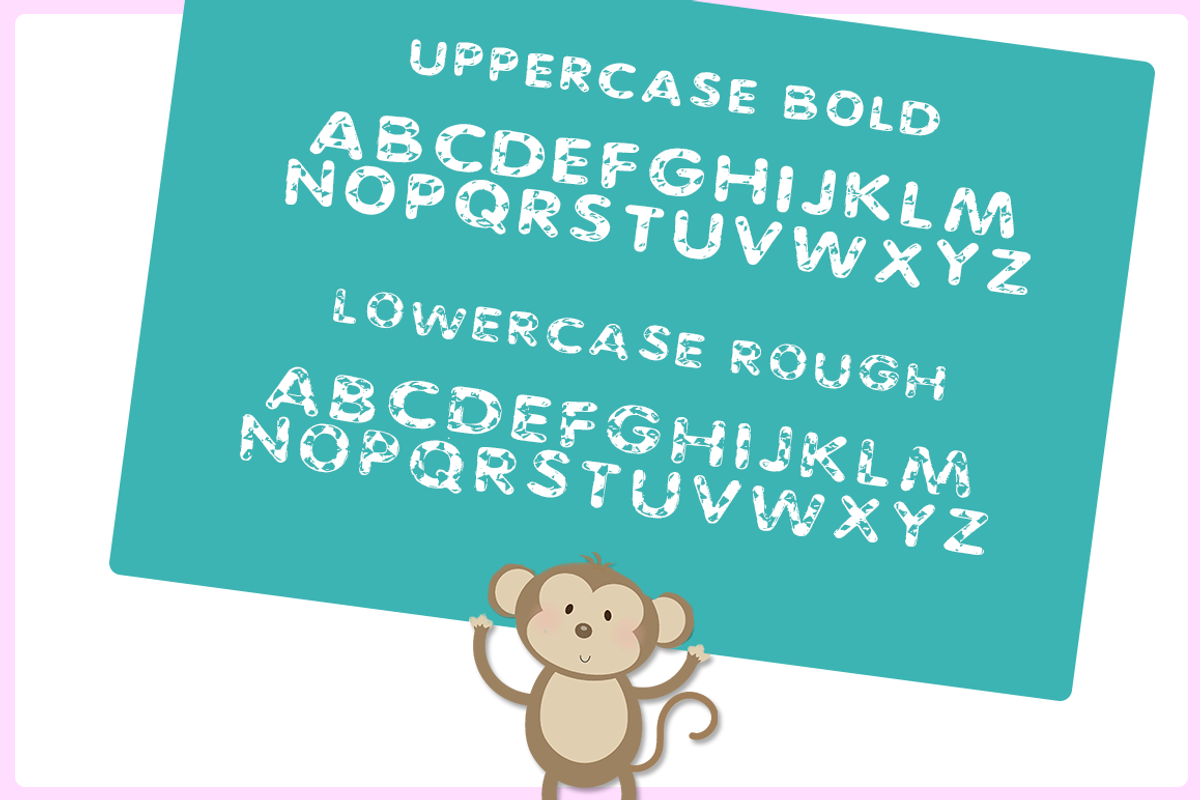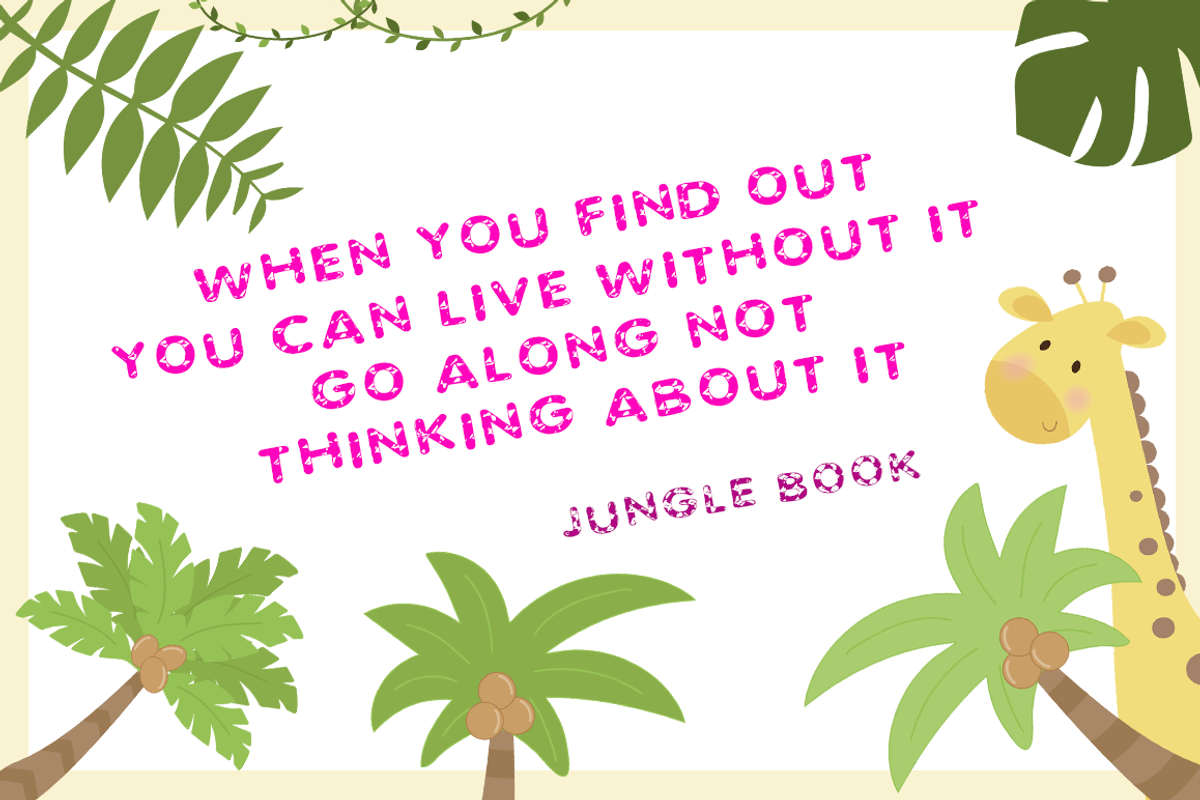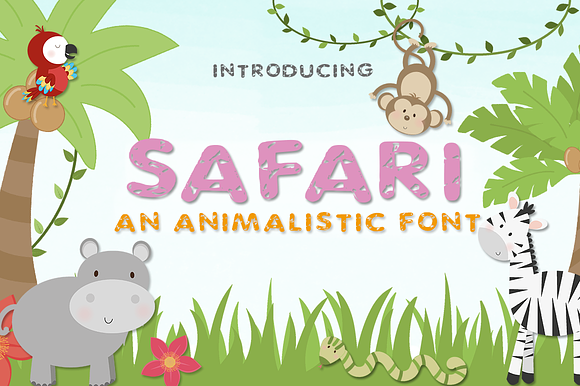
Safari Regular Font
Let’s go on safari! Take our wonderful new font on vacation with you and let it keep your designs wild! The animal print can be considered giraffe, leopard or other! Enjoy!
Please note this font ONLY includes uppercase and lowercase letters, no punctuation or numbers!
Why Safari Regular Font is worth a look
Safari Regular Font by Salt & Pepper Designs fits naturally into Branding, posters, packaging, typography.